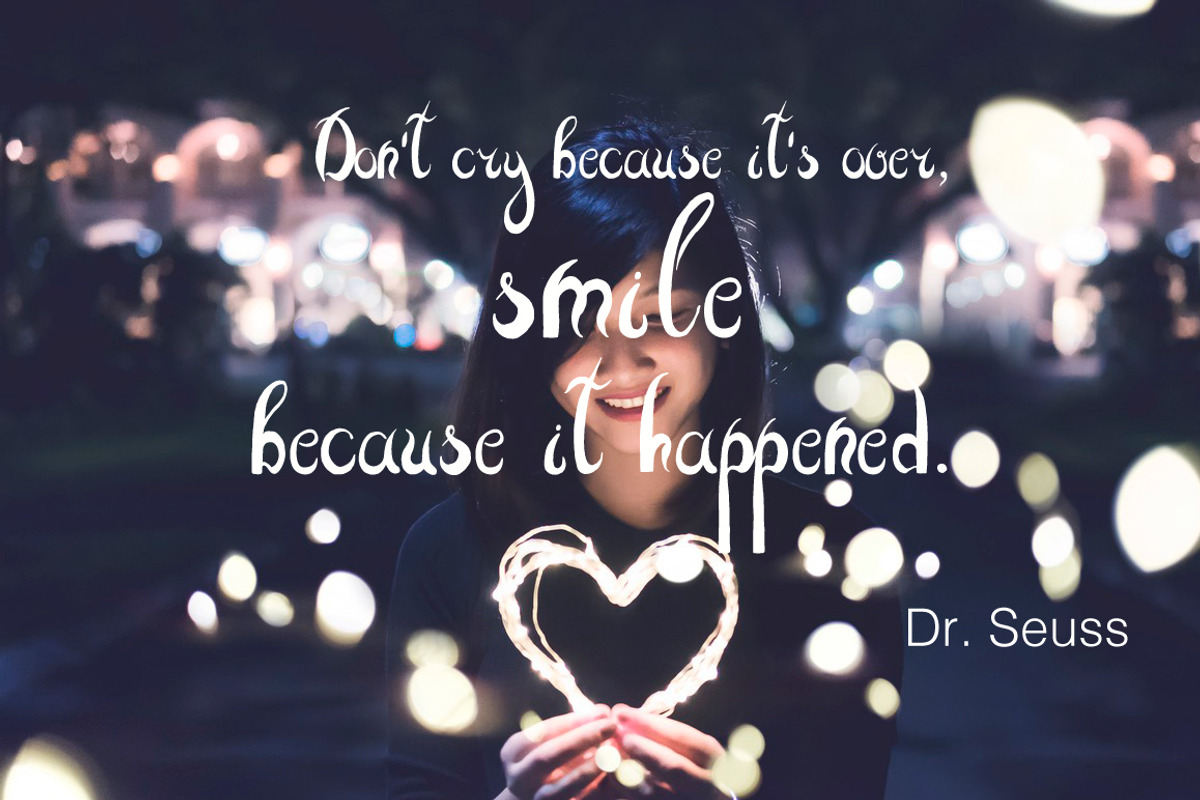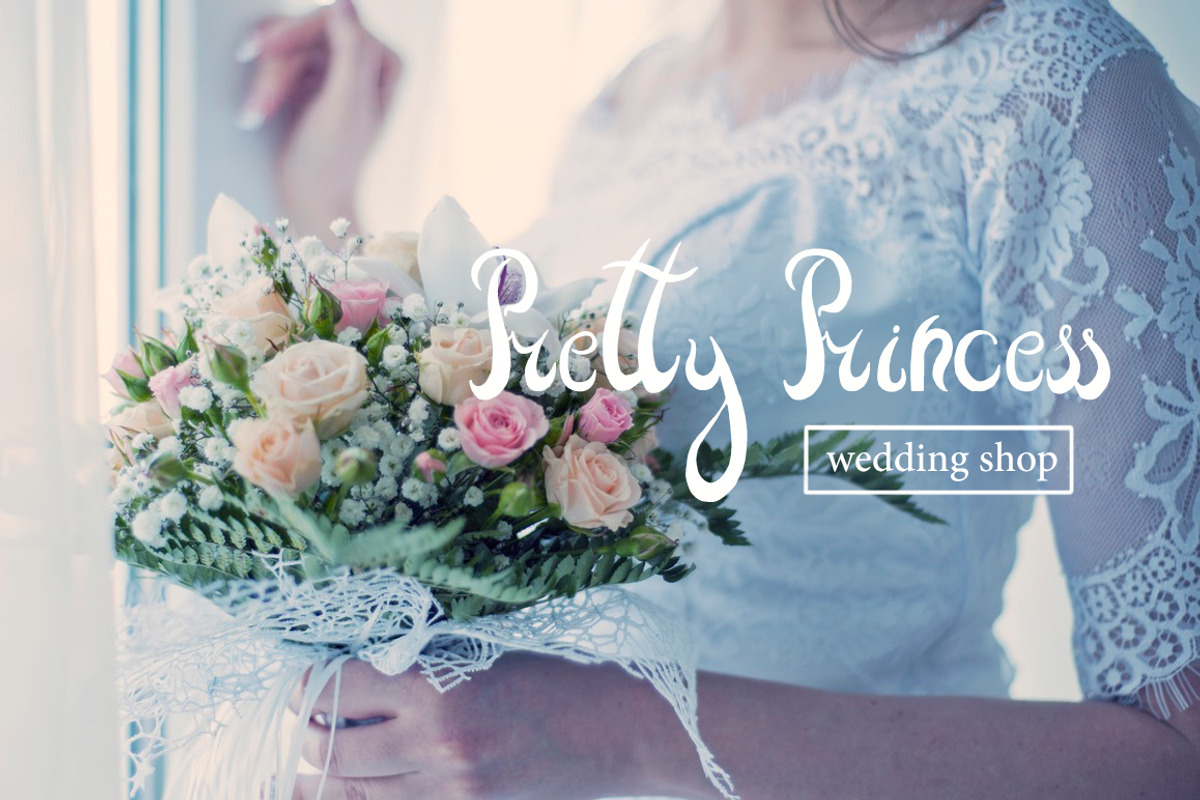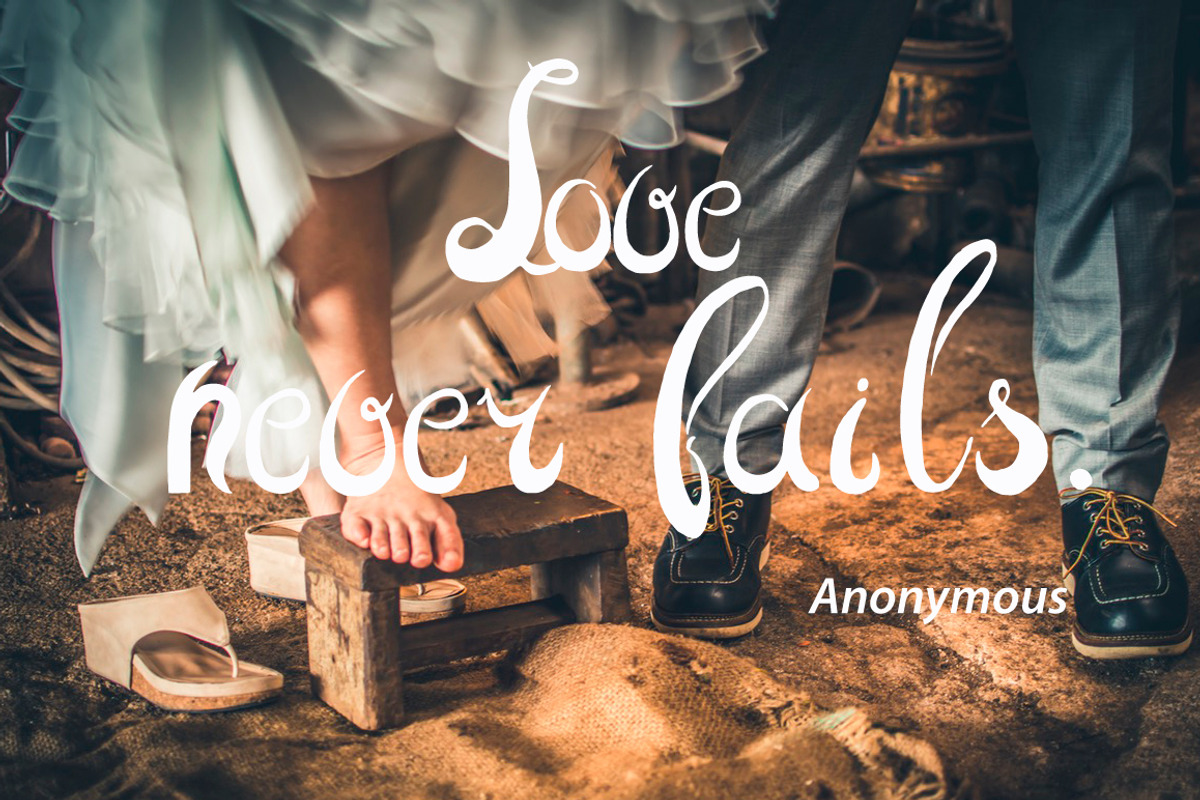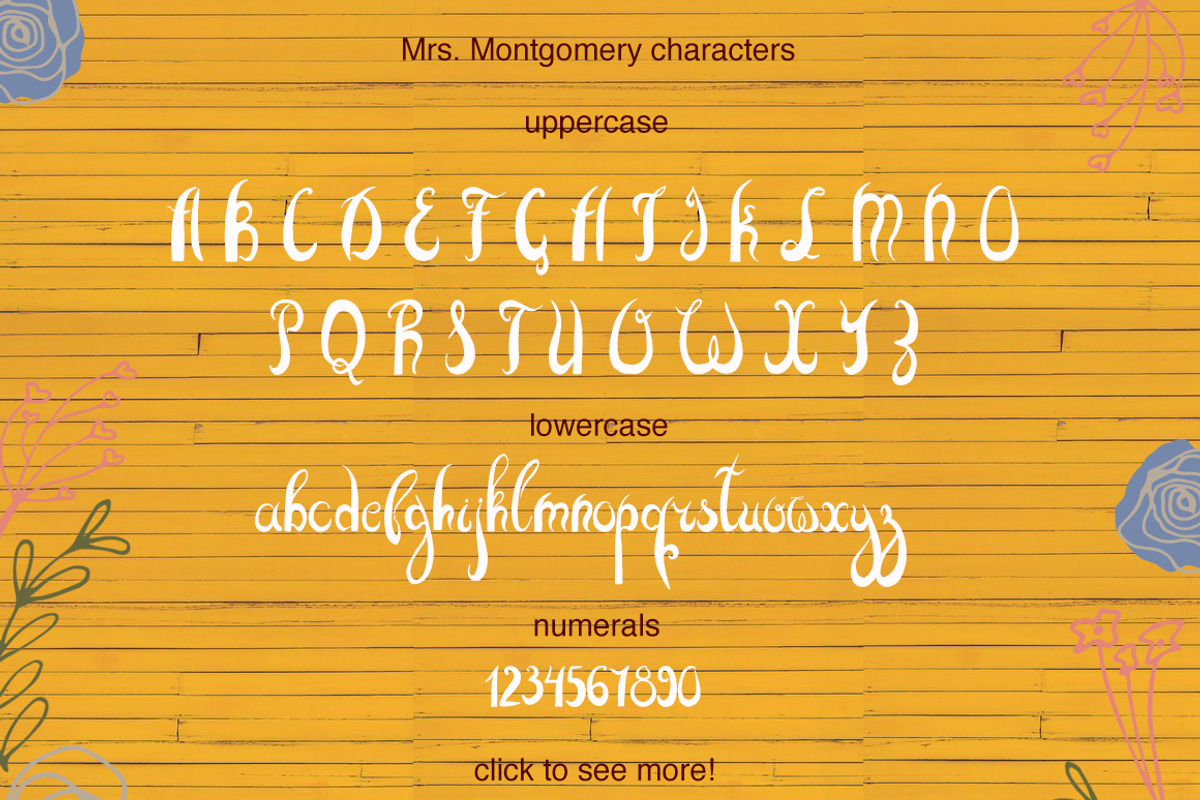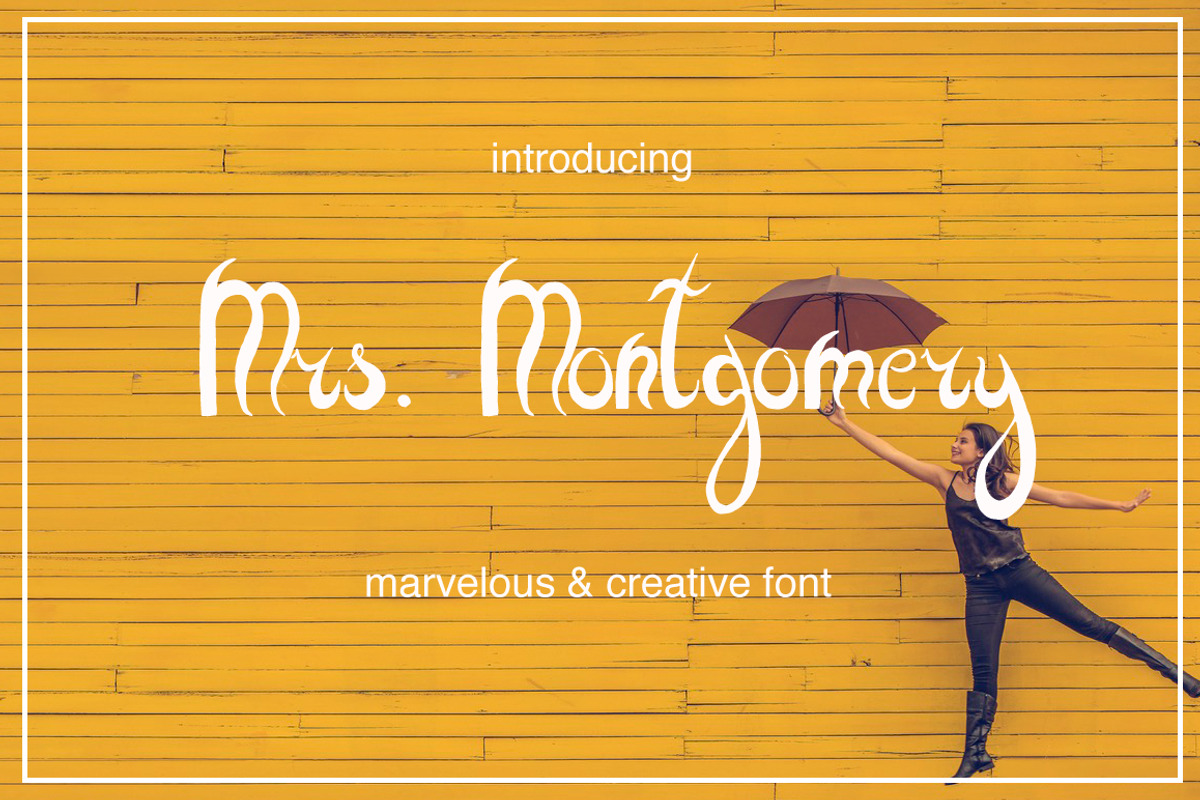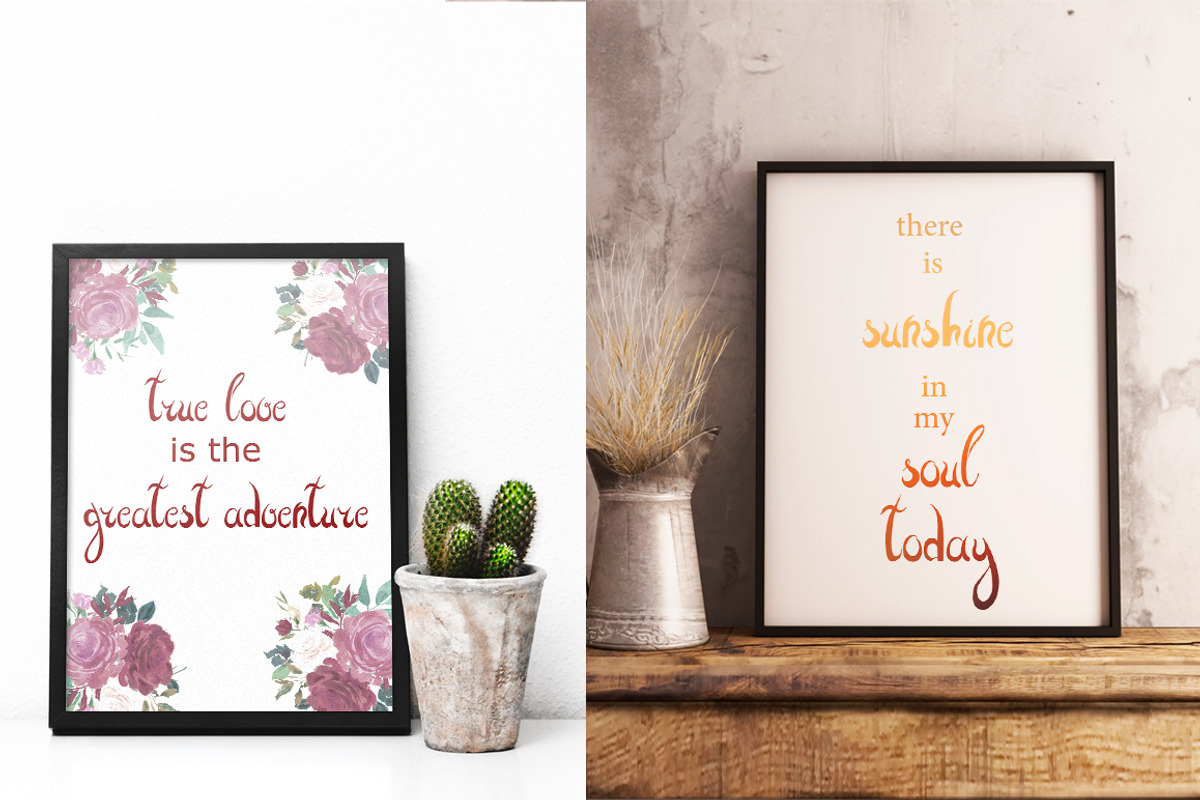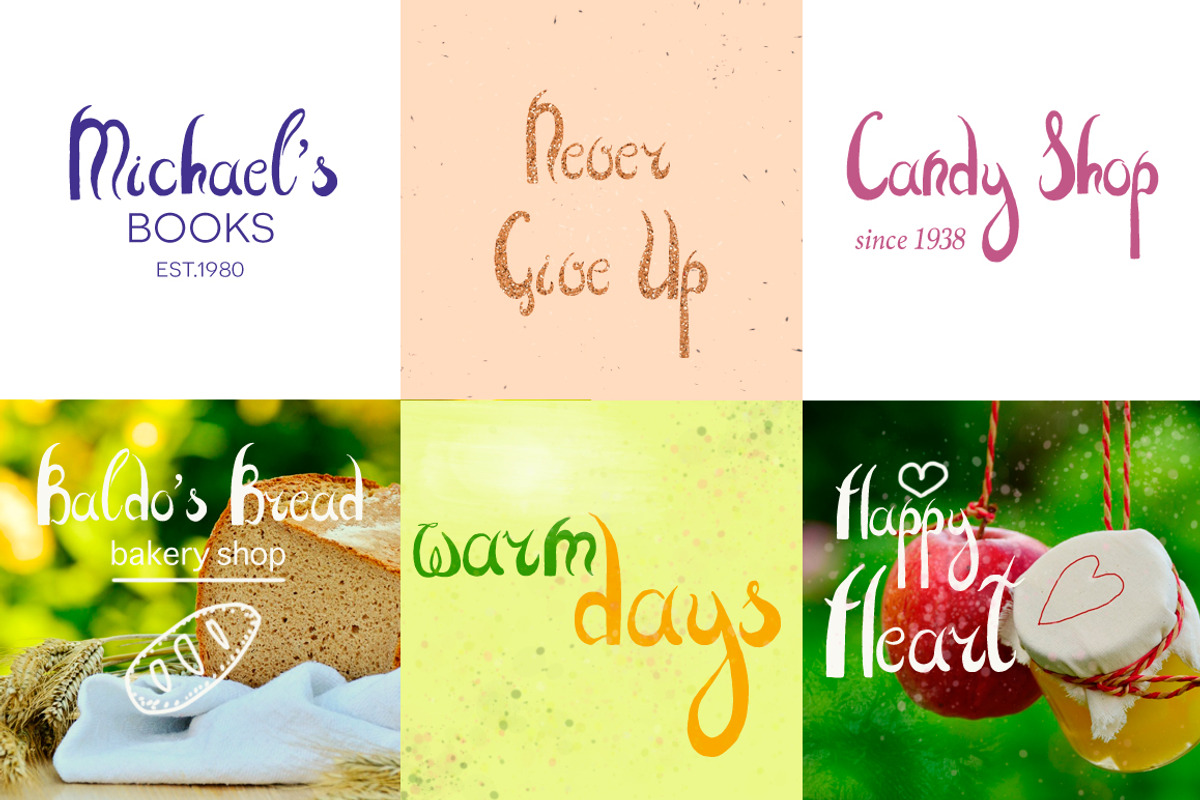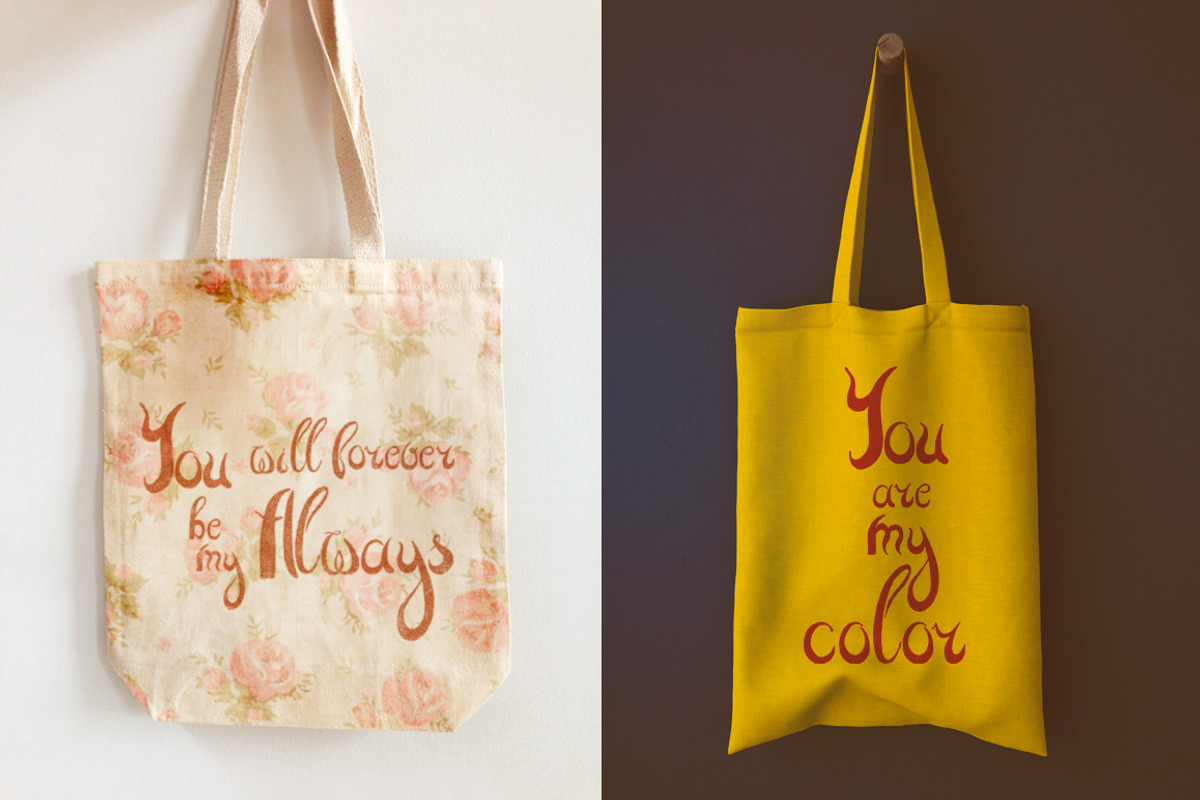
Mrs. Montgomery Brush Font
Mrs. Montgomery Brush Font by Daria Chegaieva is a font selected for branding, posters, packaging, typography.
Why Mrs. Montgomery Brush Font is worth a look
Mrs. Montgomery Brush Font by Daria Chegaieva fits naturally into Branding, posters, packaging, typography.